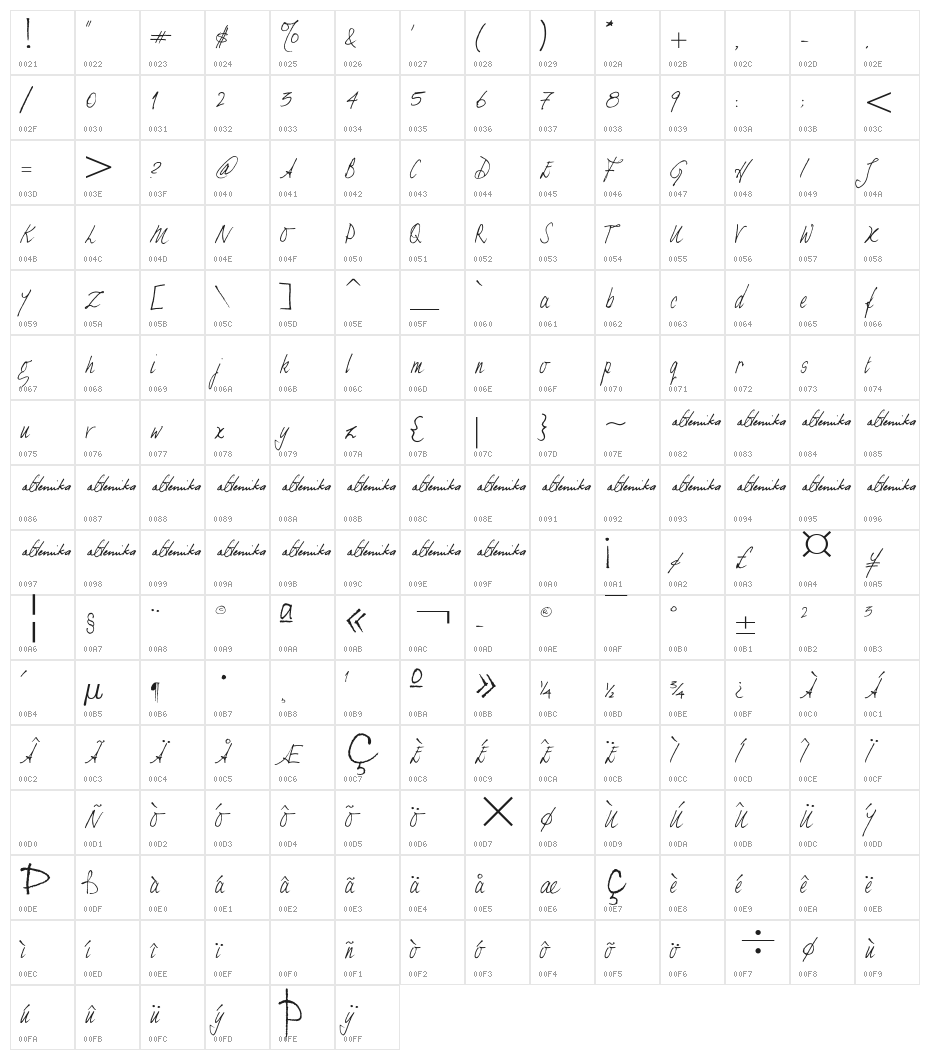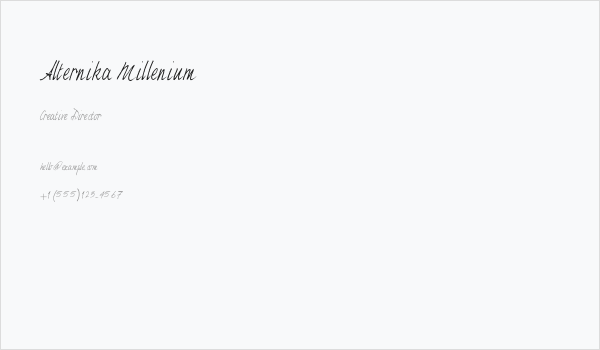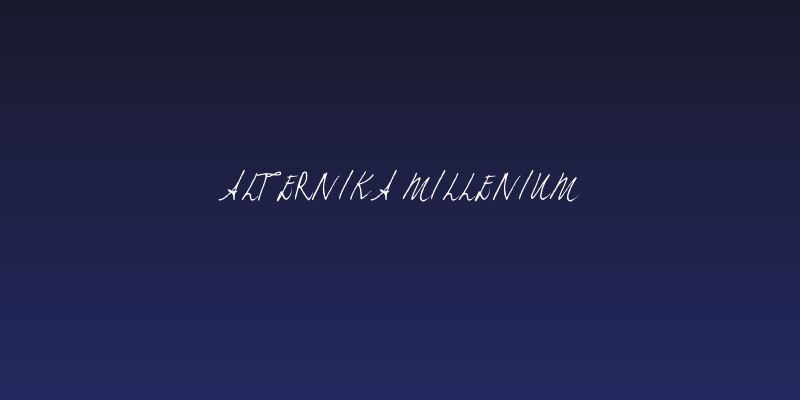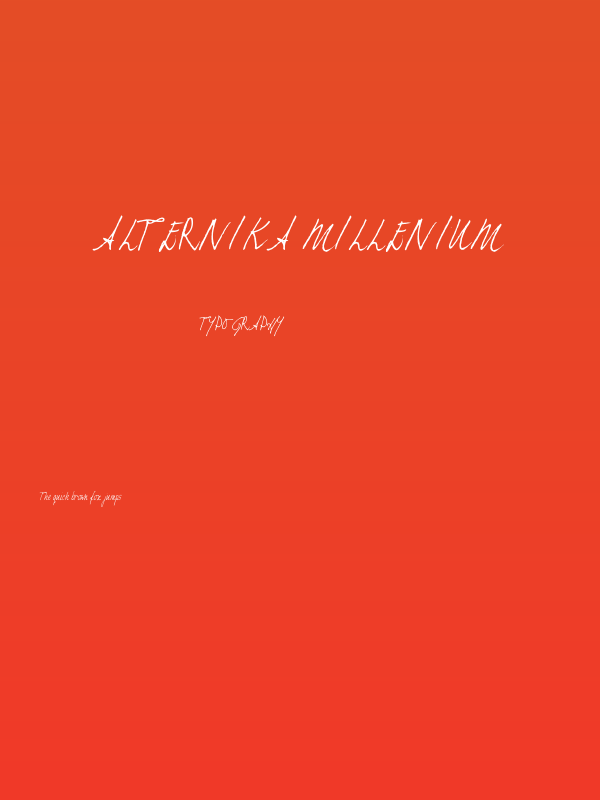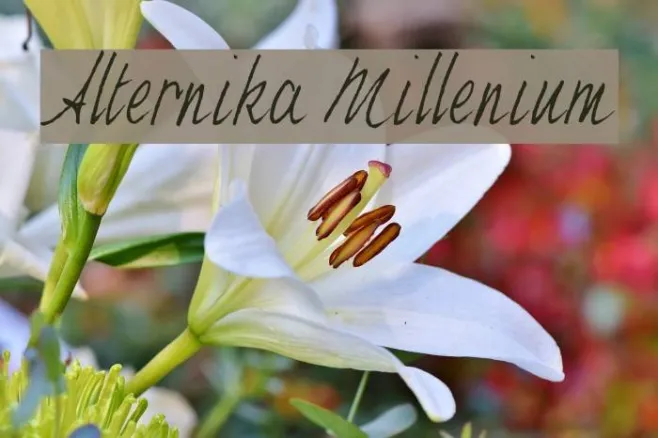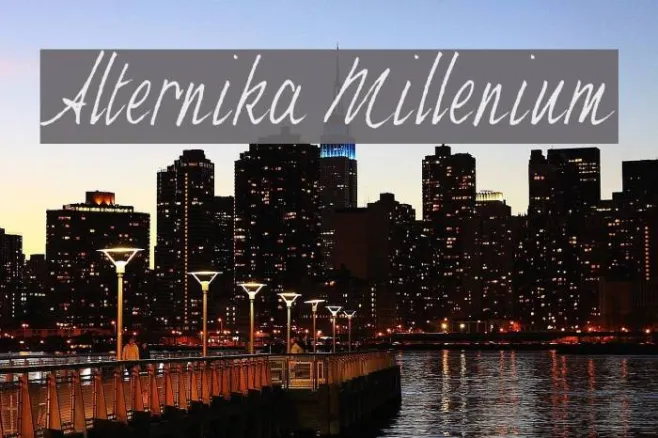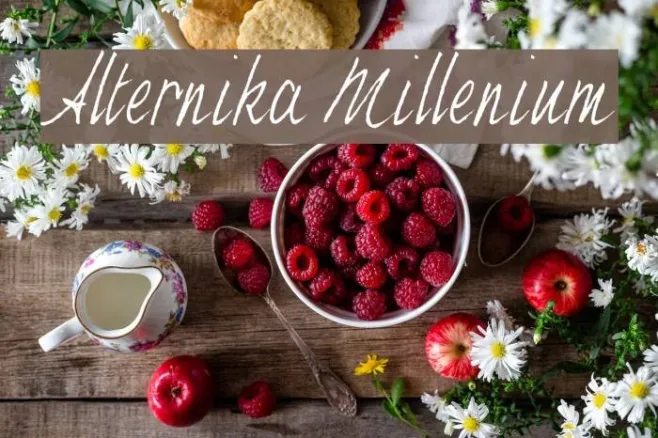
Alternika Millenium Font
Alternika Millenium Description
This font exhibits a dynamic and expressive handwritten style, characterized by its fluid and cursive letterforms. The uppercase and lowercase letters maintain a consistent slant, giving the text a sense of motion and elegance. The strokes are varied in thickness, adding a natural and personal touch to the overall appearance. The numerals and special characters are designed to match the flowing style of the alphabet, ensuring a cohesive look across all elements. This font is ideal for projects that require a personal, artistic, or informal touch, such as invitations, greeting cards, or creative branding.
| Proposed Projects | Ideal for invitations, greeting cards, artistic branding, and personal projects. |